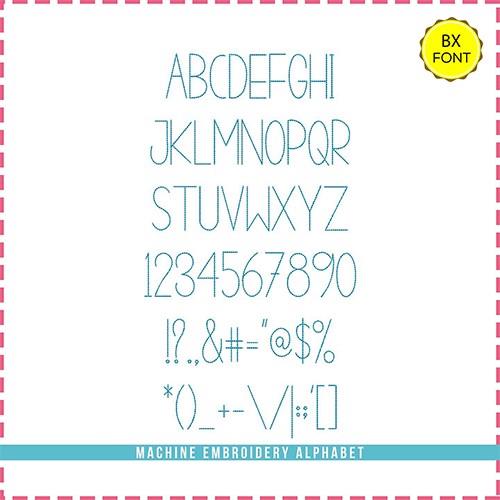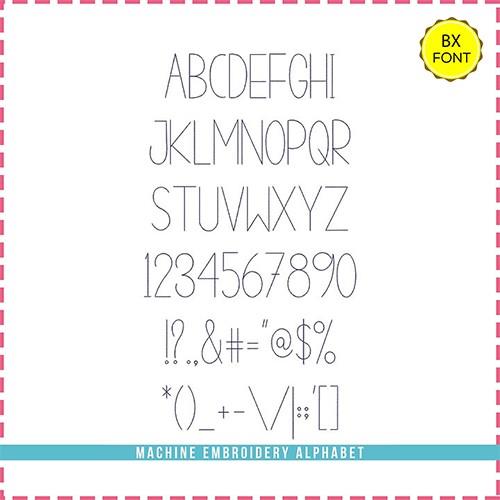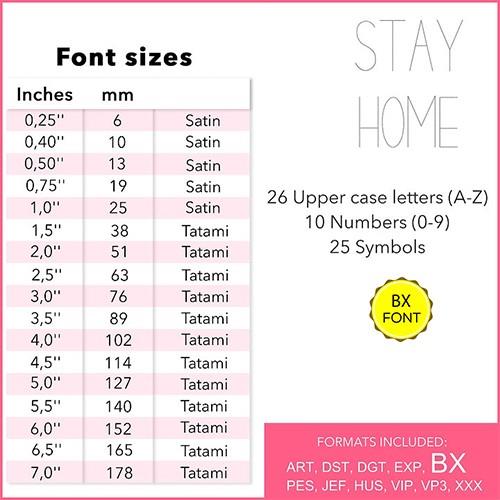
Stay Home Embrilliance Embroidery Font - Clean Outline Style - 17 Sizes Included: 0.25"-2" - BX font by Maya Kreations and other embroidery fonts available at EmbroideryDesigns.com.
Maya Kreations is happy to present Stay Home Embrilliance Embroidery Font - Clean Outline Style - 17 Sizes Included: 0.25"-2" - BX font machine embroidery font which has The outline machine embroidery font showcases tall, evenly spaced letters for clear readability, making it suitable for home decor projects like wall hangings. Available in BX font and Embrilliance formats. included. If you would like to view more embroidery fonts and alphabets please search our embroidery fonts page.